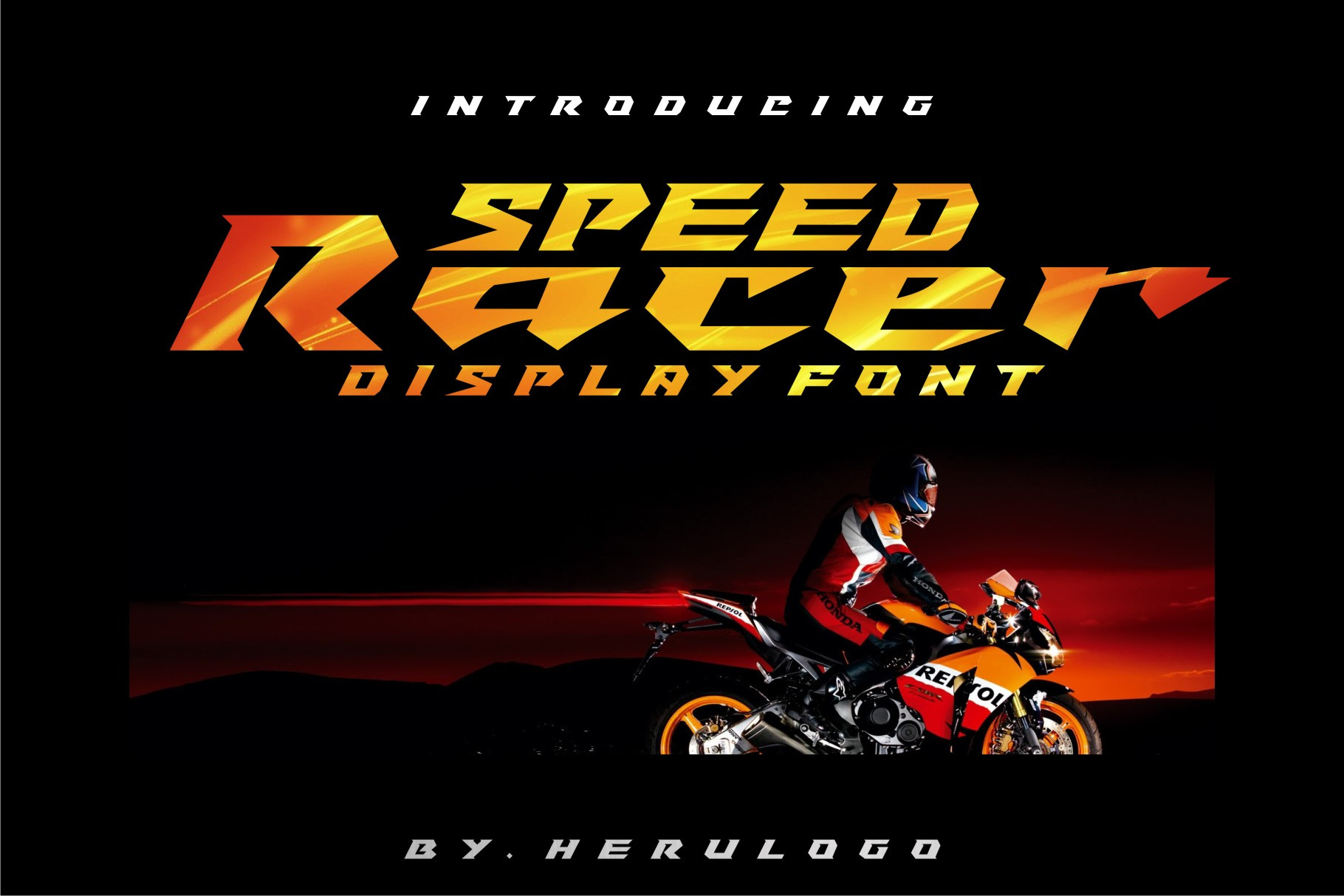
Speed Racer Display Font
Looking Sporty font? here we have a unique display font for your brand. Speed/fast and Super for this Speed racer display font.